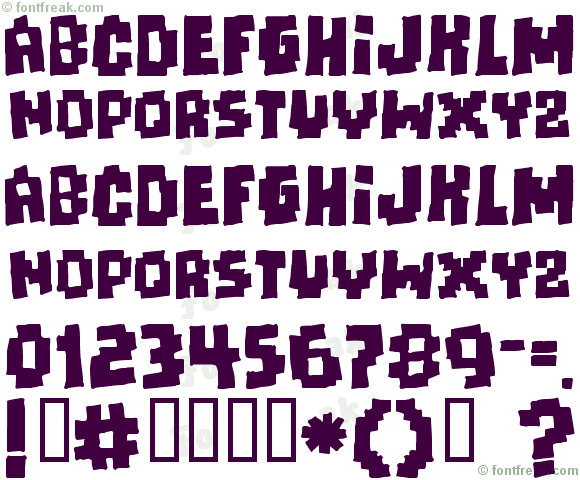
Freaks of Nature [massive]
Freaks of Nature
About Freaks Of Nature
The Freaks Of Nature font by Pizzadude is a captivating display typeface that embodies a sense of playful whimsy, making it an ideal choice for creative projects that require a unique touch. This font features a bold, hand-drawn style with irregular, organic shapes that evoke the essence of nature itself. The strokes exhibit a varying weight that adds character and depth, while the overall spacing is balanced, ensuring readability without sacrificing the artistic flair inherent in its design. The decorative elements of the font, such as the exaggerated curves and quirky character forms, contribute to its eccentric charm, making it a standout choice for projects that aim to capture attention.
Freaks Of Nature is perfect for a variety of applications, including vibrant wedding invitations that want to convey a fun and relaxed atmosphere, eye-catching movie posters that reflect an adventurous theme, and engaging restaurant menus that invite diners to explore a unique culinary experience. Additionally, it works well for children's books or educational materials, where a playful aesthetic can enhance the learning experience. The font appeals to graphic designers, small business owners, and content creators looking to infuse their work with personality and creativity.
What makes the Freaks Of Nature font truly distinctive is its ability to seamlessly blend artistic expression with functionality. It stands out as a versatile typeface that can be used in both digital and print formats, ensuring that your projects resonate with a diverse audience. With its freeware license, the Freaks Of Nature font free download allows designers and creators to incorporate this striking typeface into their work without any financial constraints, making it an accessible choice for those looking to elevate their designs with a touch of nature-inspired whimsy.